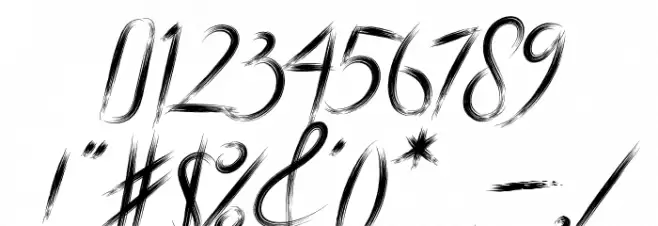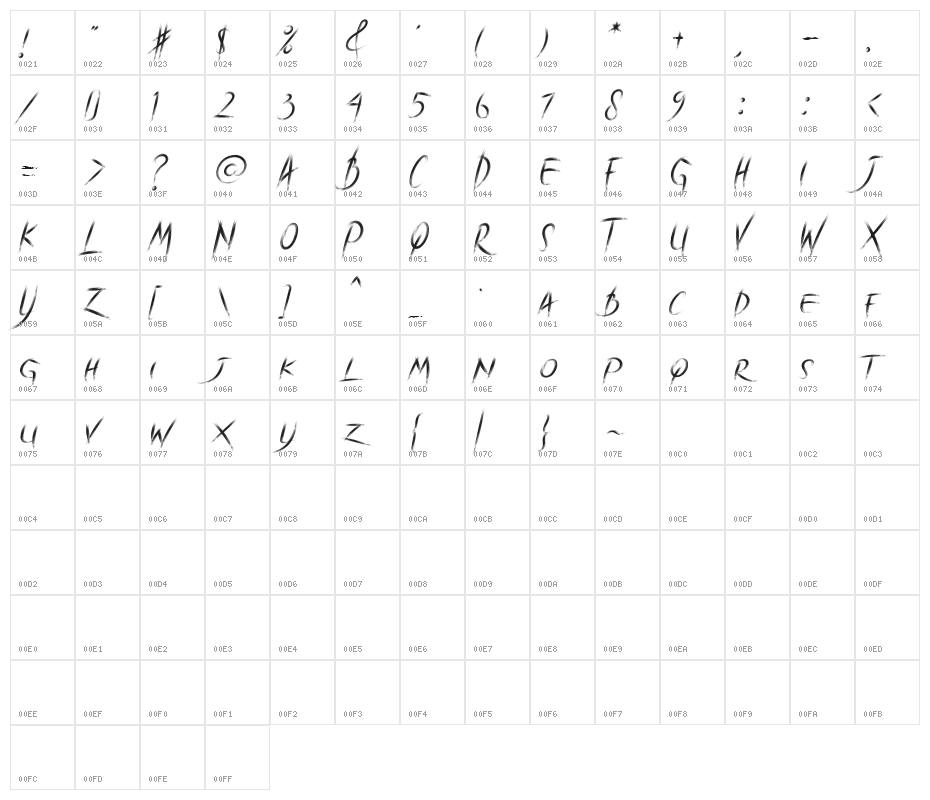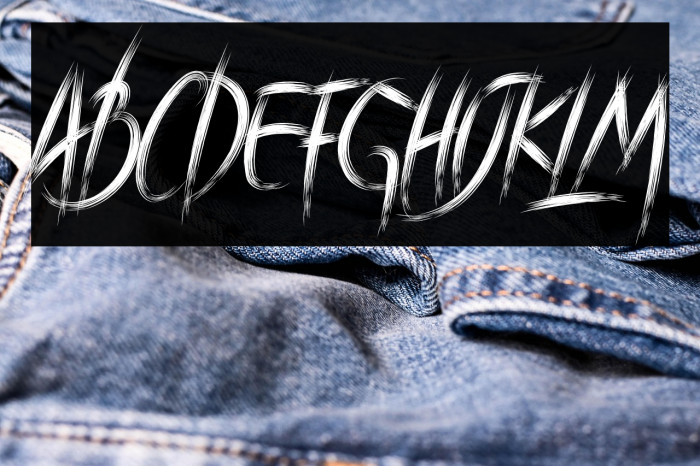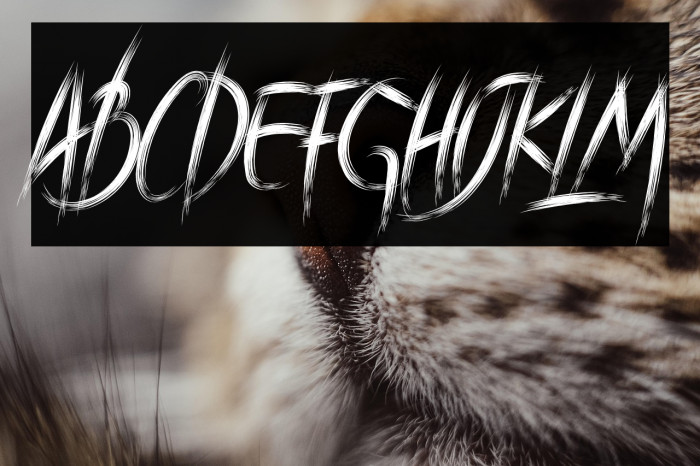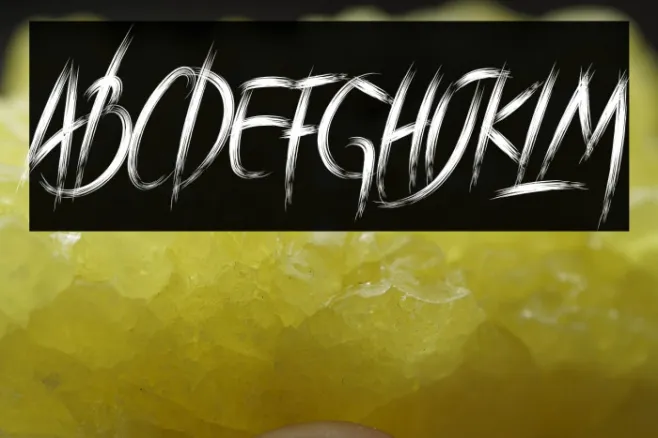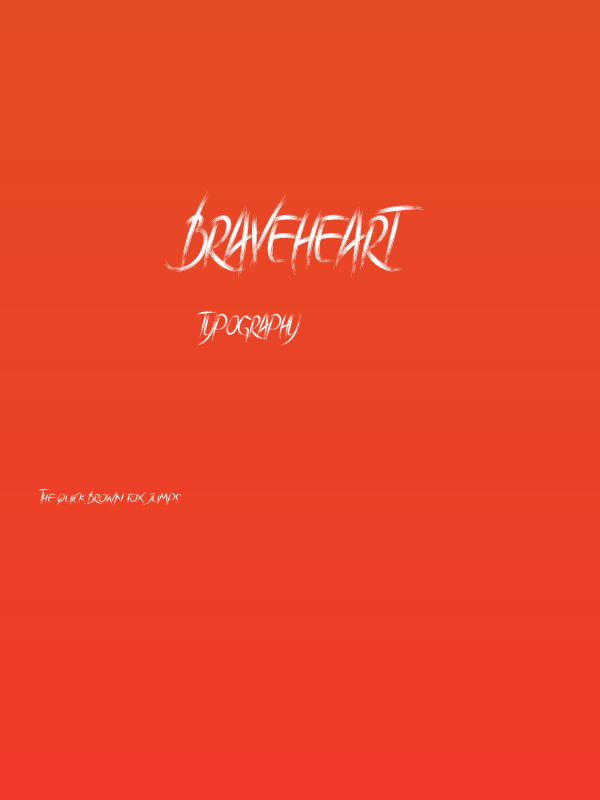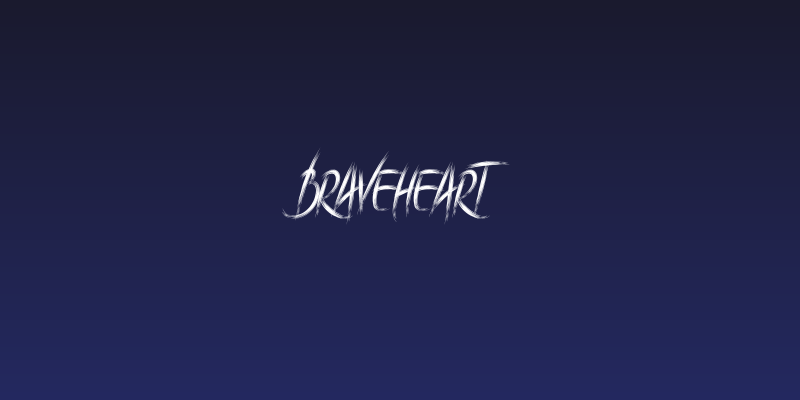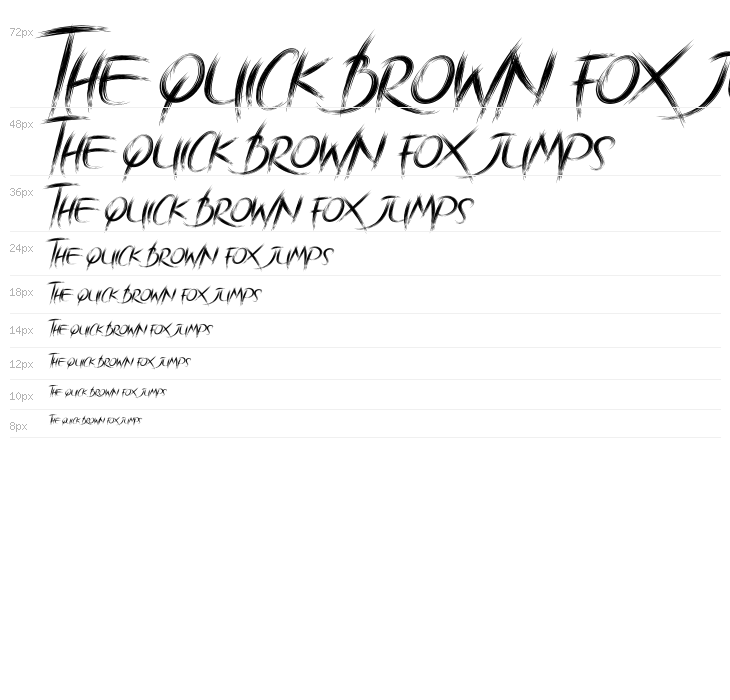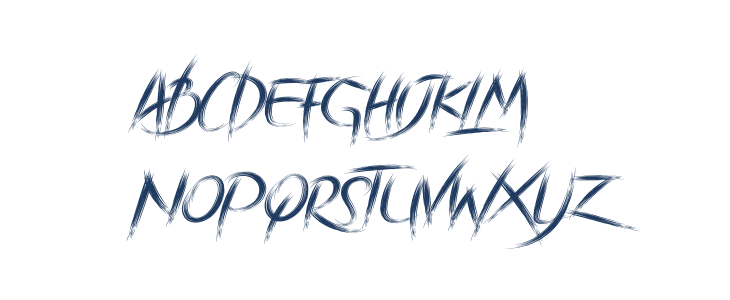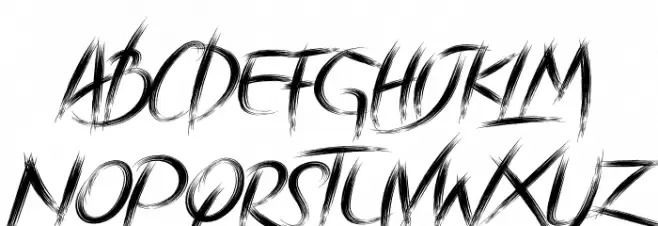
BraveHeart Font
BraveHeart Description
This font features a dynamic and energetic style, characterized by sharp, angular strokes and a brush-like texture. The letters are bold and expressive, with a sense of movement and intensity that suggests a hand-drawn aesthetic. The uppercase and lowercase letters maintain a consistent style, with exaggerated curves and pointed edges that create a dramatic visual impact. The numbers and special characters follow the same design principles, ensuring a cohesive look across all elements. This font is ideal for projects that require a bold and artistic touch, capturing attention with its unique and striking appearance.
| Proposed Projects | Ideal for posters, album covers, branding materials, and any design requiring a bold artistic flair. |